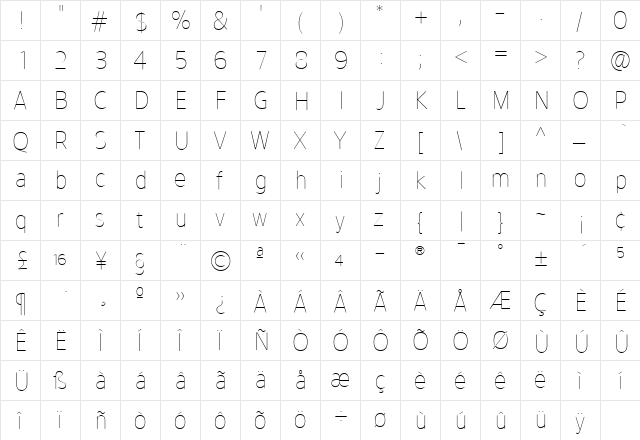
TFForeverTwo Thin
| Foundry | J. Treacy, Treacyfaces,Inc |
| Year | 1988 |
Design Context for TFForeverTwo Typeface
TFForeverTwo is a composed and adaptable typeface that performs quietly and consistently across a wide range of design contexts. The delicate stroke weight brings airiness and refinement to layouts.